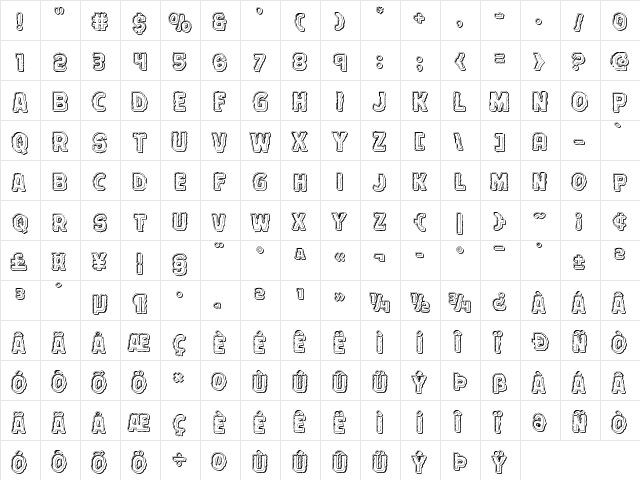
Terror Babble Engraved Regular
Design Context for Terror Babble Engraved Typeface
Terror Babble Engraved brings ornamental detail and strong personality to headlines and identities, where visual impact matters more than quiet functionality.
Font Pairing: Pair with a clean neutral sans-serif for body copy to let Terror Babble Engraved's character lead without overwhelming the composition.
Pro Tip: Treat Terror Babble Engraved as the centrepiece of your typographic hierarchy. One strong heading set in a decorative face can carry an entire layout.